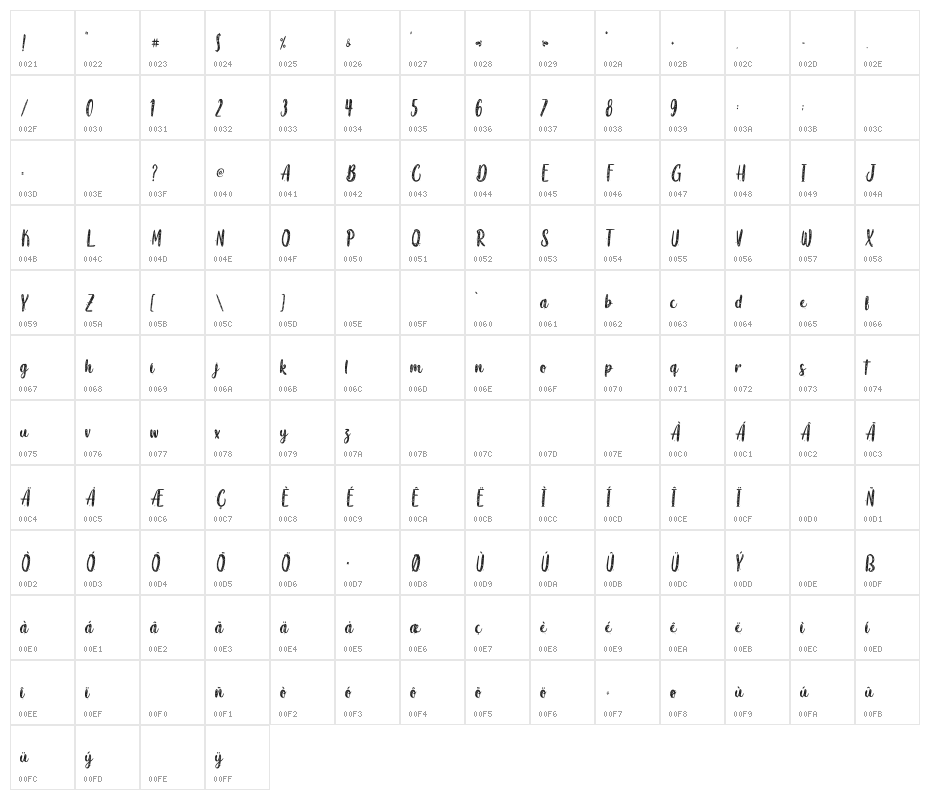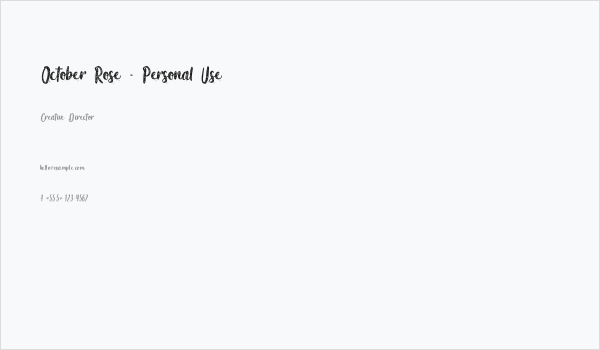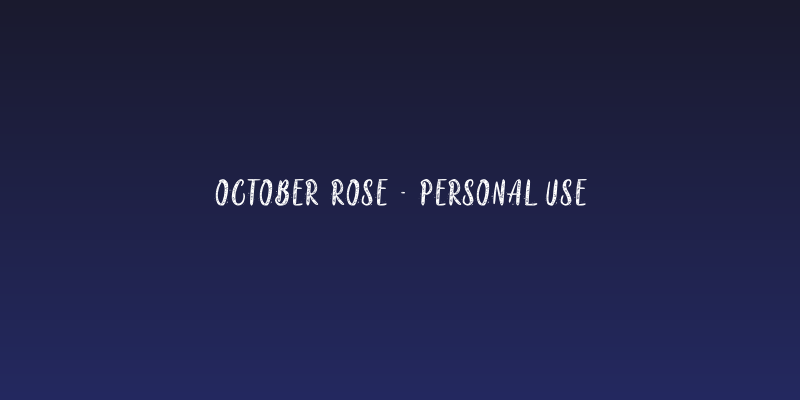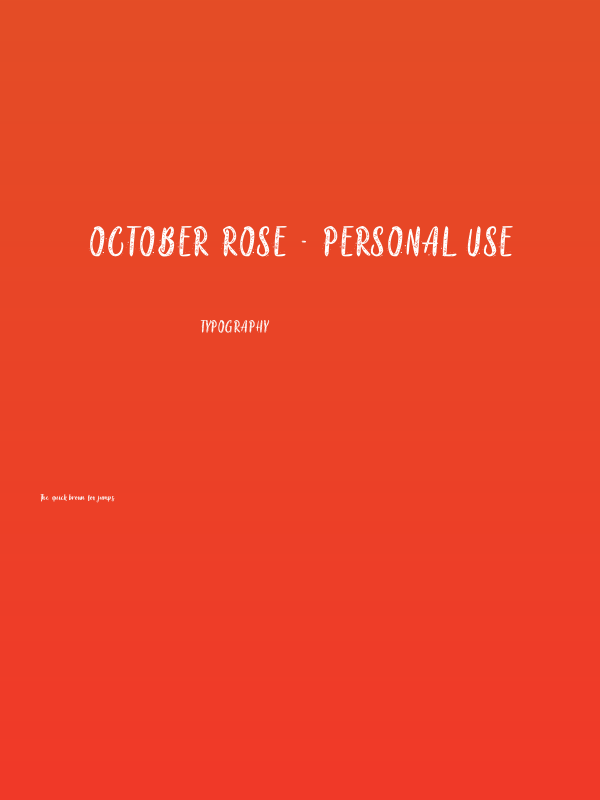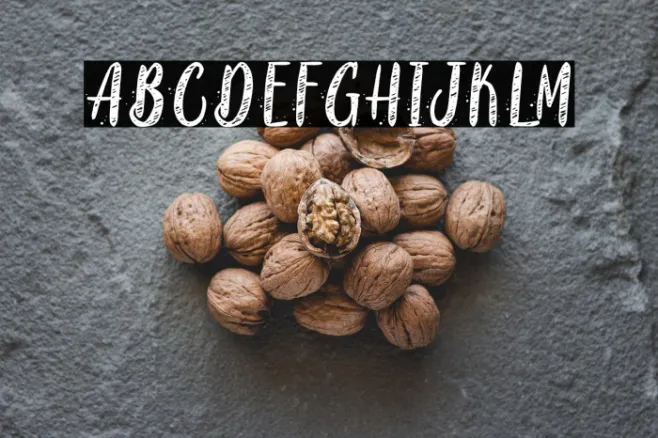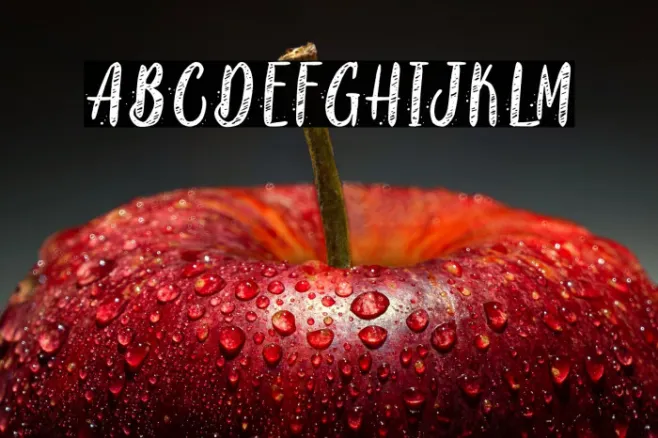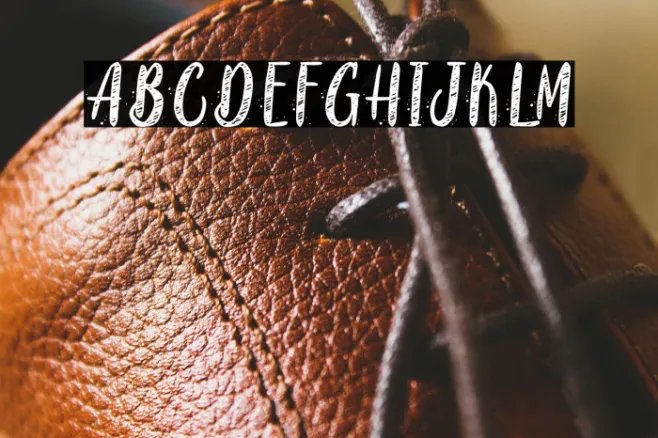
October Rose - Personal Use Font
October Rose - Personal Use Description
This font features a playful and artistic style with a hand-drawn appearance. The letters exhibit a textured, slightly distressed look, giving them a unique, rustic charm. The uppercase characters are bold and prominent, while the lowercase letters maintain a consistent flow with a slightly cursive influence. The numbers and special characters follow the same textured theme, adding to the overall cohesive design. This font is ideal for projects that require a creative and informal touch, such as invitations, posters, or branding materials that aim to convey a sense of individuality and warmth.
| Proposed Projects | Ideal for invitations, posters, branding materials, and creative projects. |